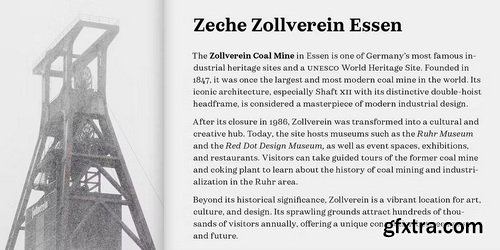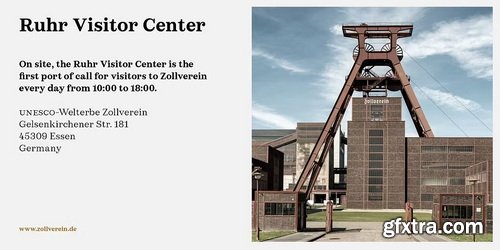
Werkdruck is a serif typeface from the good old times made fit for our day, threading together different sources of rational and transitional type design. A sturdy construction makes reading copy easy, while the decidedly digital curves show their strength in large sizes. Unlike its narrower turn-of-the-century predecessors, Werkdruck opts for more generous shapes with contemporary digital needs in mind, remaining legible when set small on high-resolution displays. The 9 weights of the Werkdruck family come with true italics and sport 911 glyphs each—all you need for complex typesetting. Werkdruck is the ideal serif companion for our popular sans, Werksatz: Pair these two hard-werking playmakers to create admirably self-reliant designs.